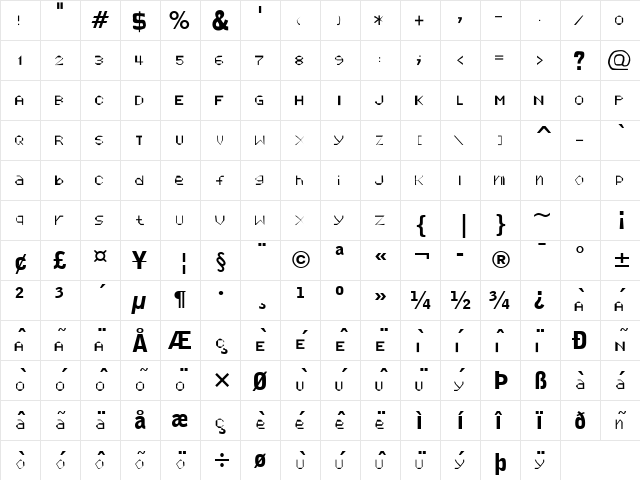
Dimelthoz_8x7 Black
Design Context for Dimelthoz_8x7 Typeface
Dimelthoz_8x7 takes a measured approach to typography — its balanced proportions and neutral character make it a reliable workhorse for both digital and print work.